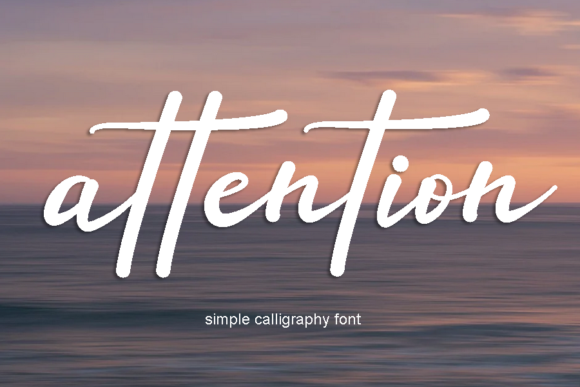
The Perfect Blend of Creativity and Style: Attention Font
Have you ever found yourself staring at a blank page, waiting for that spark of inspiration to strike? For designers, it’s a familiar feeling – the moment when creativity takes over and a new idea is born. It’s in these moments that we need a font that can keep up with our imagination, one that can adapt to any style and bring our vision to life. Enter Attention Font, a casual and adaptable handwritten font that’s about to become your new go-to companion.
With its distinct and well-balanced letters, Attention Font is a masterpiece that’s perfect for creating spectacular designs. Whether you’re working on a branding project, a social media campaign, or a digital product, this font is sure to grab attention (pun intended!) and leave a lasting impression. Its versatility makes it a valuable asset for designers, allowing you to experiment with different styles and effects without ever losing sight of your message.
Key Features of “Attention Font”
- Unique Characteristics: The Attention Font features a unique blend of modern and classic design elements, making it perfect for projects that require a bold and eye-catching look.
Review of Attention Font
As a designer, I recently had the opportunity to work with the Attention Font, and I have to say it’s a mixed bag. Here’s my honest review.
- Attention Font has a bold, modern aesthetic that’s perfect for grabbing attention. Its unique letterforms are sure to make your text stand out.
- The font is highly customizable, with a wide range of weights and styles to choose from. This makes it easy to tailor the font to your specific design needs.
- Attention Font is also highly legible, even at small sizes. This is a major plus for designers who need to use the font in tight spaces.
- One of the biggest drawbacks of Attention Font is its limited support for non-ASCII characters. This can be a problem for designers who need to work with languages that use non-Latin scripts.
- The font also has some issues with kerning, particularly at small sizes. This can result in awkward spacing between letters.
Overall, I’d say that Attention Font is a solid choice for designers who need a bold, modern font with good legibility. However, its limitations in terms of non-ASCII character support and kerning may make it less suitable for certain projects. With a bit of tweaking and customization, though, Attention Font can be a real showstopper.
Practical Application Guide for “Attention Font”
Getting the Most Out of “Attention Font”
To get the most out of “Attention Font”, use it sparingly to draw attention to key headlines or titles. Pair it with a clean and simple background to make the font stand out. Experiment with different font sizes and colors to create visual hierarchy and emphasize important information.
“Attention Font” is commonly used in:
- Marketing materials and advertisements
- Infographics and data visualizations
- Website and landing page design
Alternatives to “Attention Font” for Designers
Montserrat is a sans-serif font that is highly legible and versatile. It is ideal for use in digital products, such as websites and mobile apps, due to its clean and modern design. Montserrat is a great alternative to Attention Font when you need a font that is both modern and highly readable.
Is Attention Font available in different weights and styles?
Yes, Attention Font is available in multiple weights and styles, including light, regular, bold, and italic. You can use these weights and styles to create visually appealing typography and convey different levels of emphasis in your design.